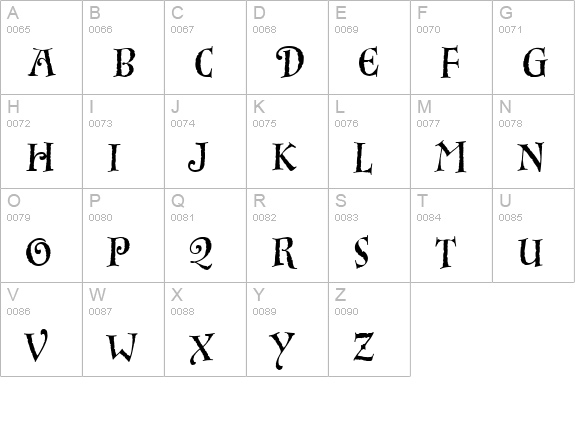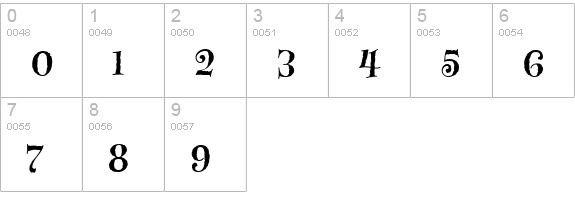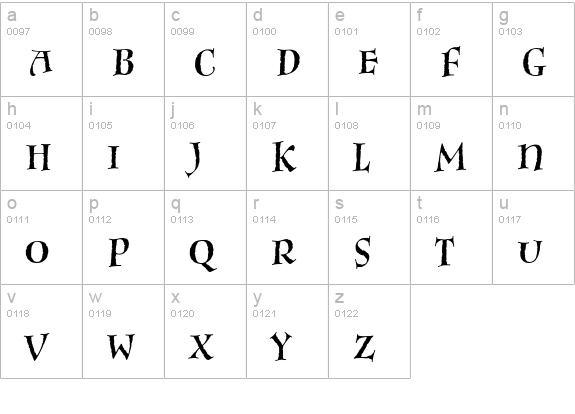
InkPotFitCaps Font Details
InkPotFitCaps font is a stunning display typeface that exudes a bold and energetic personality. Its captivating design features thick, rounded letterforms with a unique twist. The letters are meticulously crafted to give an impression of movement and dynamism, making it perfect for attention-grabbing headlines, posters, and branding projects. The InkPotFitCaps font is more than just visually striking; it also offers a sense of versatility. Its uppercase letters are adorned with intricate details and subtle curves, allowing for an expressive and versatile use in various design contexts. Whether you're creating a vintage-inspired logo or a modern digital artwork, this font will undoubtedly make a lasting impact. One of the most remarkable qualities of the InkPotFitCaps font is its ability to effortlessly blend both elegance and playfulness. The combination of bold strokes and delicate curves creates a harmonious balance that adds a touch of sophistication to any design. It is a perfect choice for those looking to add a touch of personality and charm to their creative projects. And the best part? The InkPotFitCaps font is freely available to download at FontsMarket.com. This means you can easily access and use this incredible typeface without any limitations. Whether you're a professional designer or a hobbyist, you can enjoy the benefits of this font without breaking the bank. So, if you're looking for a captivating, versatile, and freely available font to elevate your design projects, look no further than InkPotFitCaps. Download it today from FontsMarket.com and unlock a world of creative possibilities.